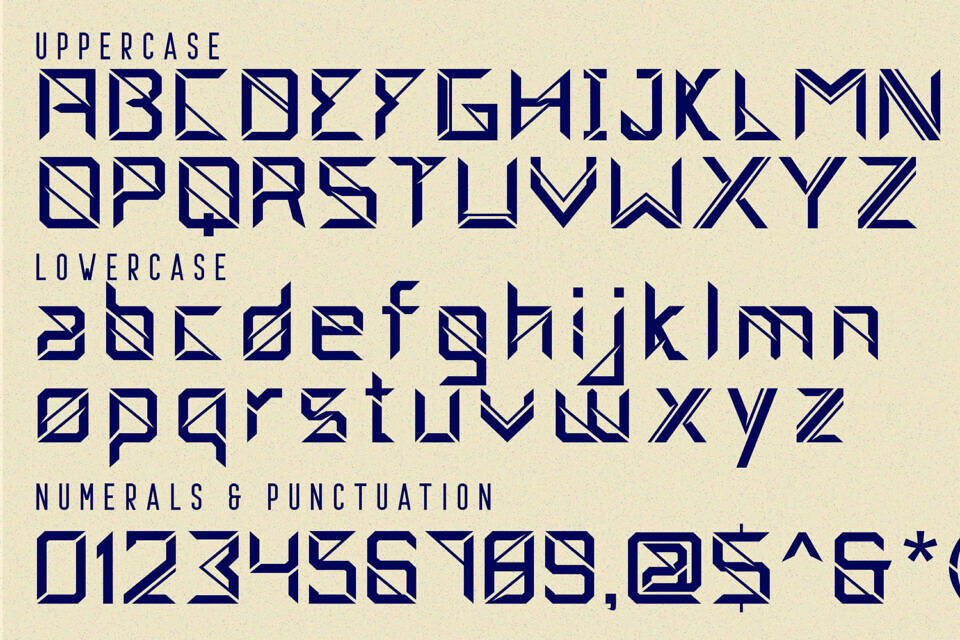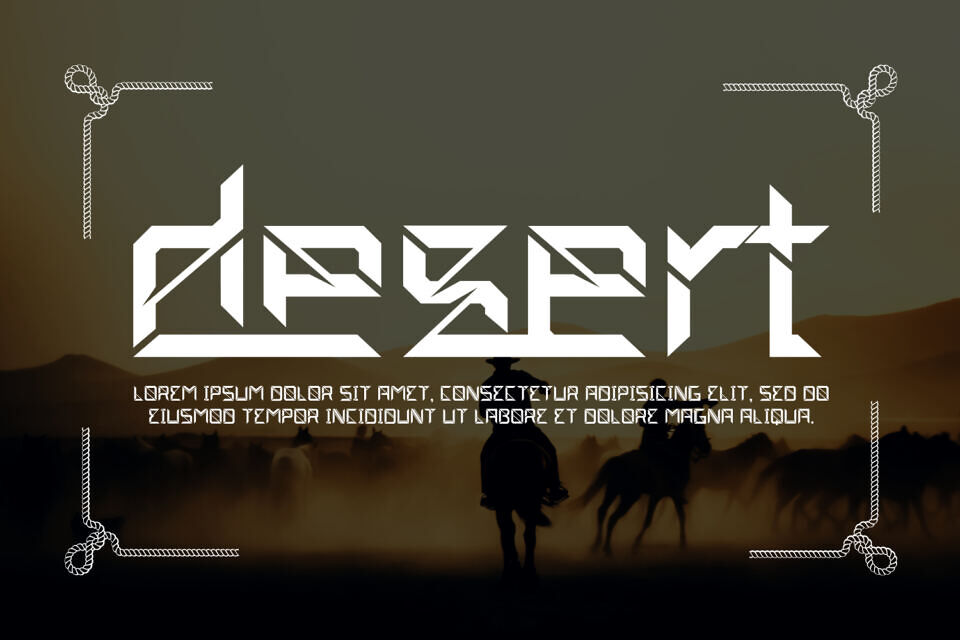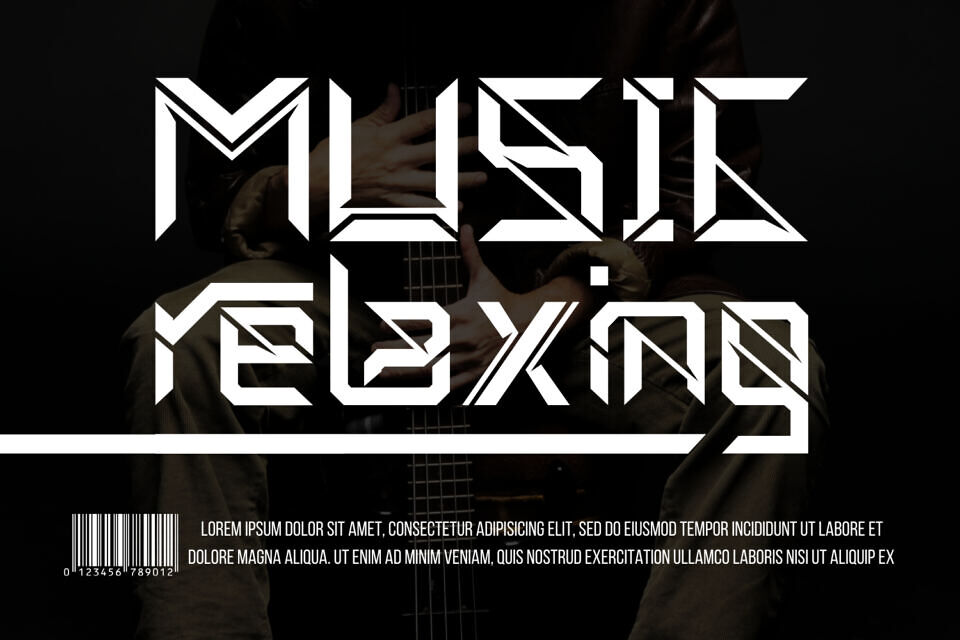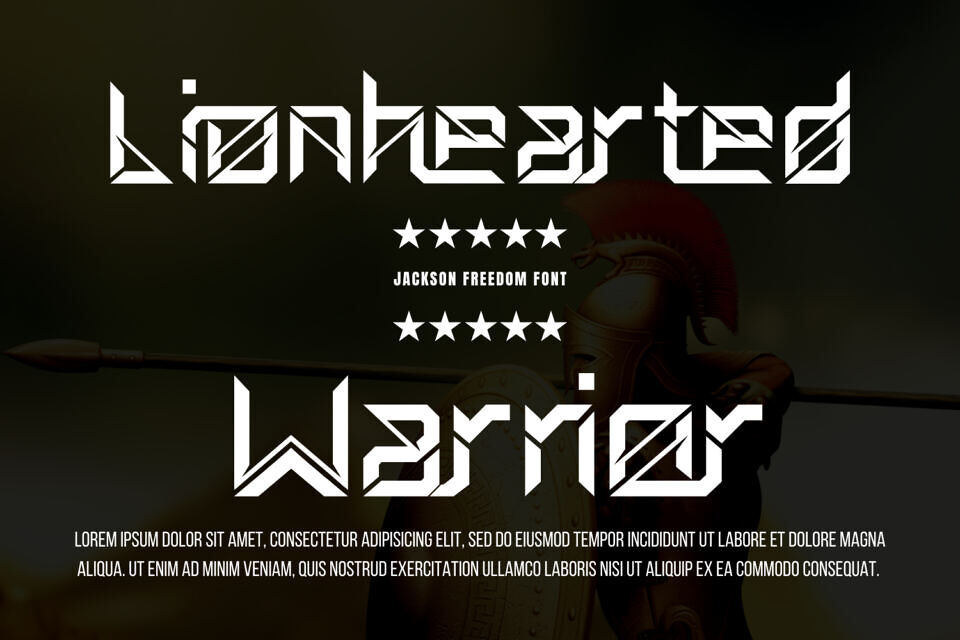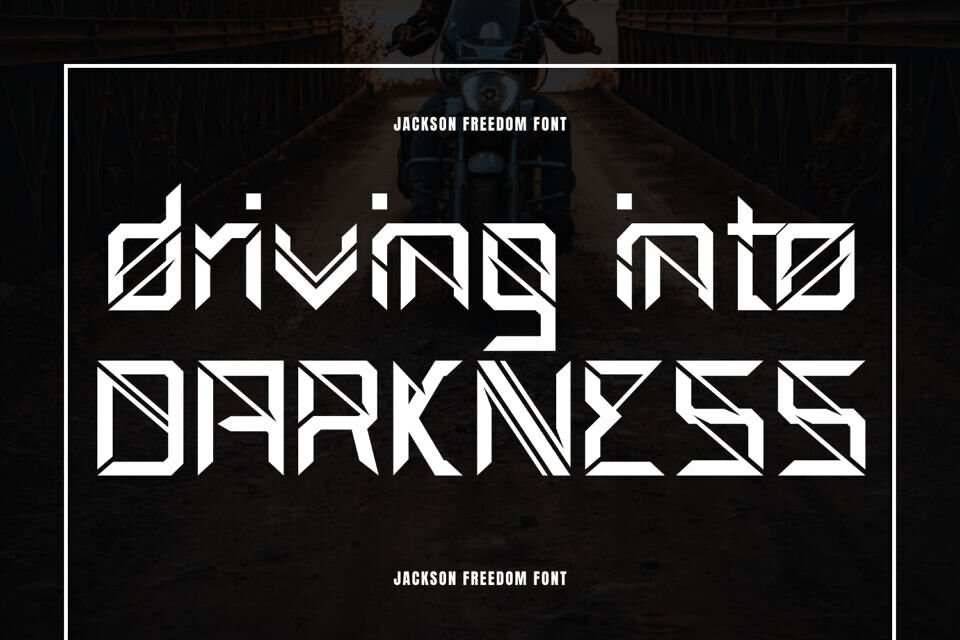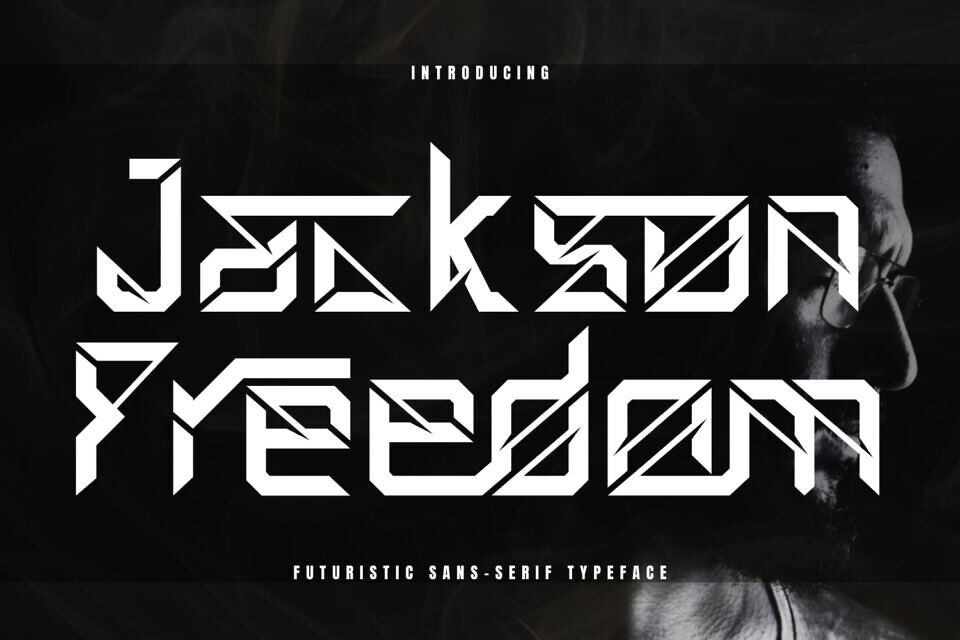
Jackson Freedom Font
Jackson Freedom is a bold futuristic display font defined by sharp angles, geometric precision, and innovative style. Designed to convey strength and modernity, this typeface is perfect for esports branding, sci-fi posters, gaming interfaces, music covers, and futuristic logos.
Its edgy construction and tech-inspired design deliver a striking visual impact, making it an excellent choice for projects seeking a bold, avant-garde aesthetic. Elevate your creative work with Jackson Freedom and showcase a powerful, forward-looking identity.